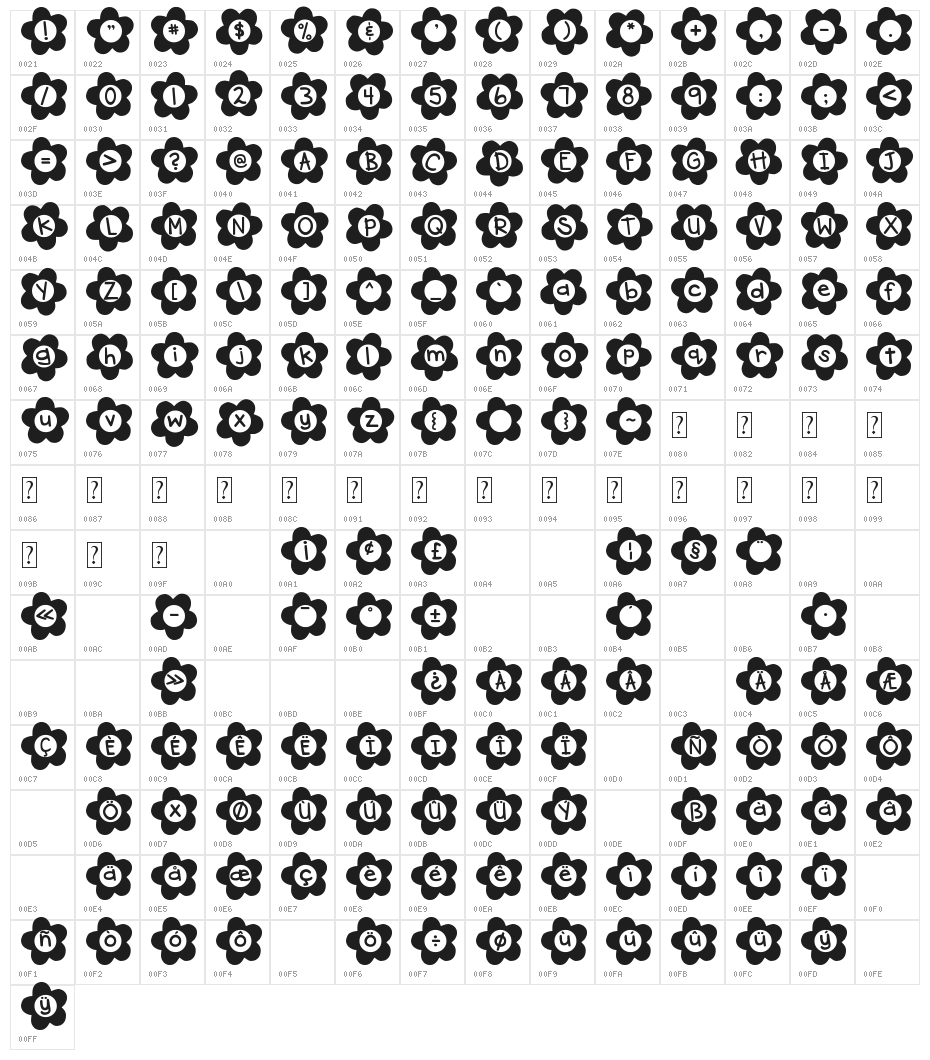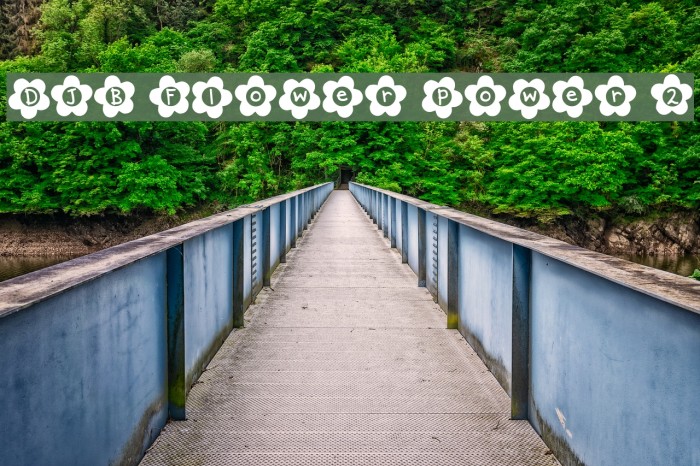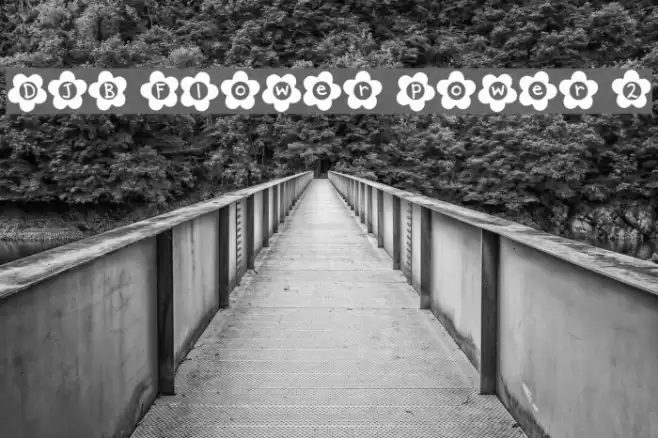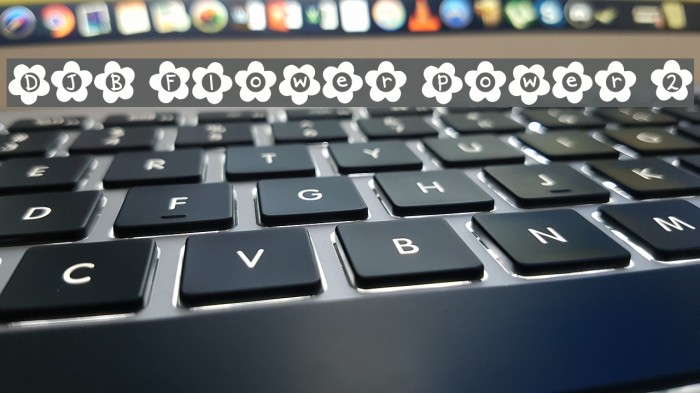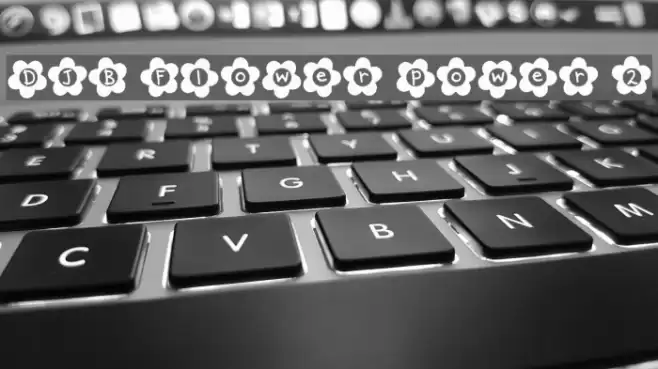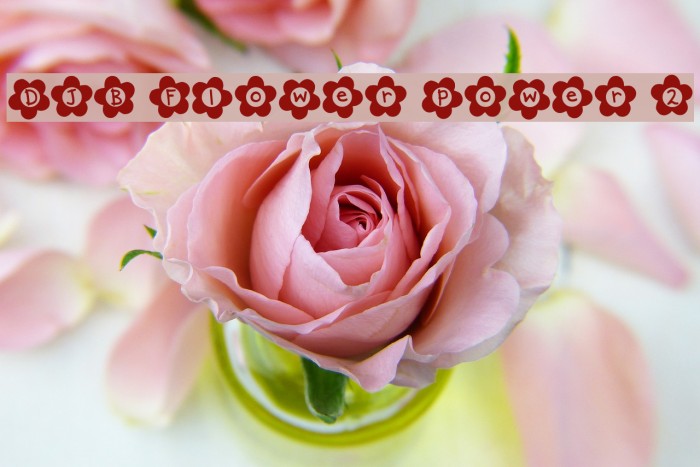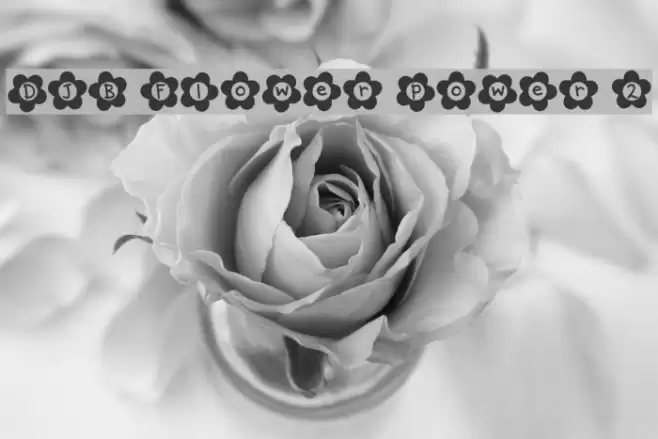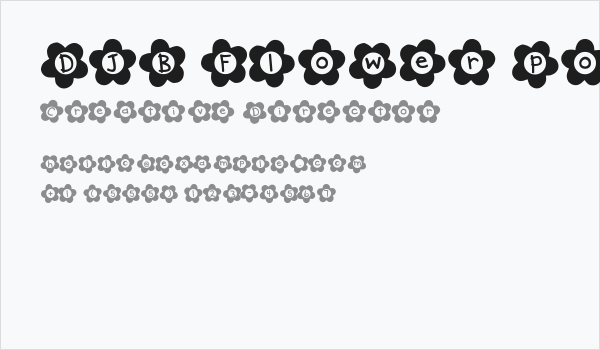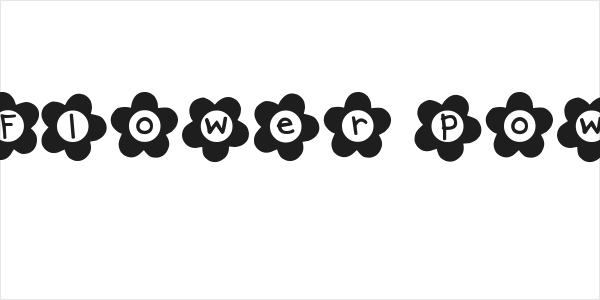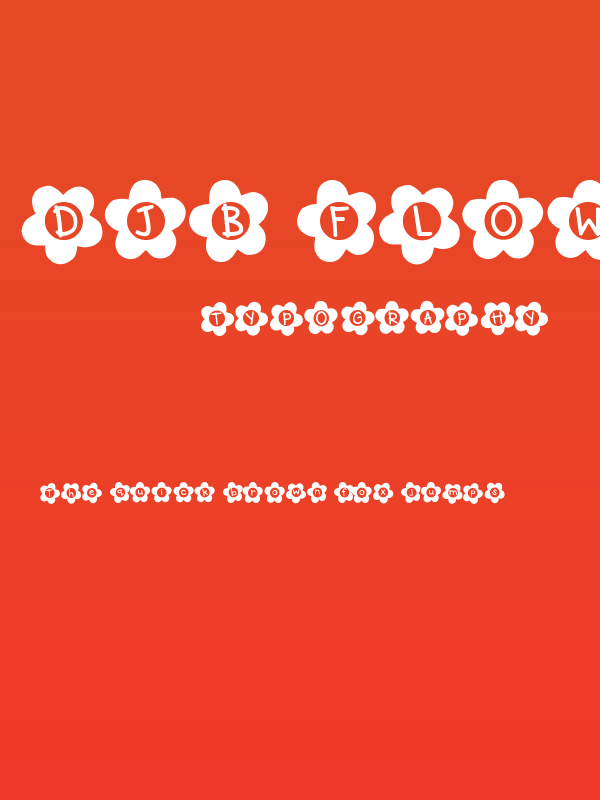
DJB Flower Power 2 Font
DJB Flower Power 2 Description
This playful and whimsical font features each character encased within a flower shape, creating a unique and eye-catching design. The letters and numbers are bold and rounded, providing a friendly and approachable appearance. The floral elements add a decorative touch, making it ideal for projects that require a fun and lively aesthetic. The consistent use of flower shapes around each character ensures uniformity and balance, while the boldness of the characters ensures readability even at smaller sizes.
Use CaseHeadlines, Logos, Decorative text
Proposed ProjectsIdeal for children's books, greeting cards, party invitations, and playful branding projects.